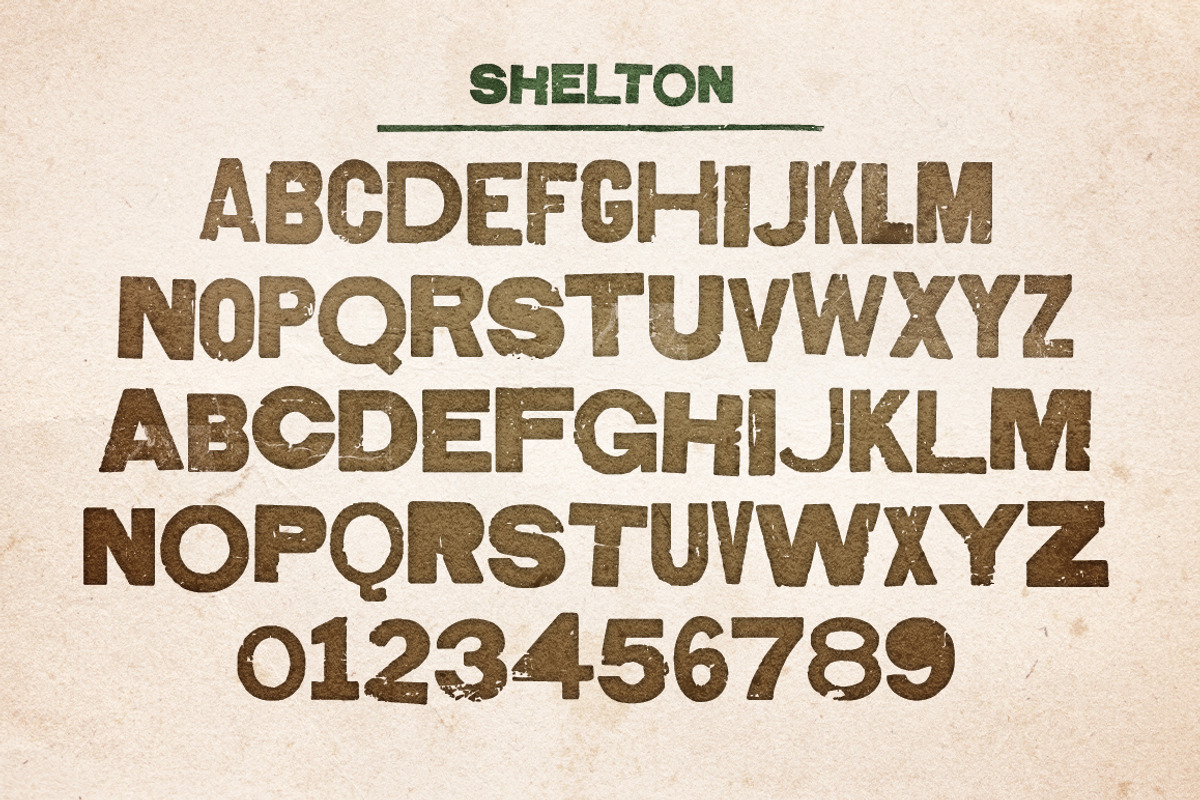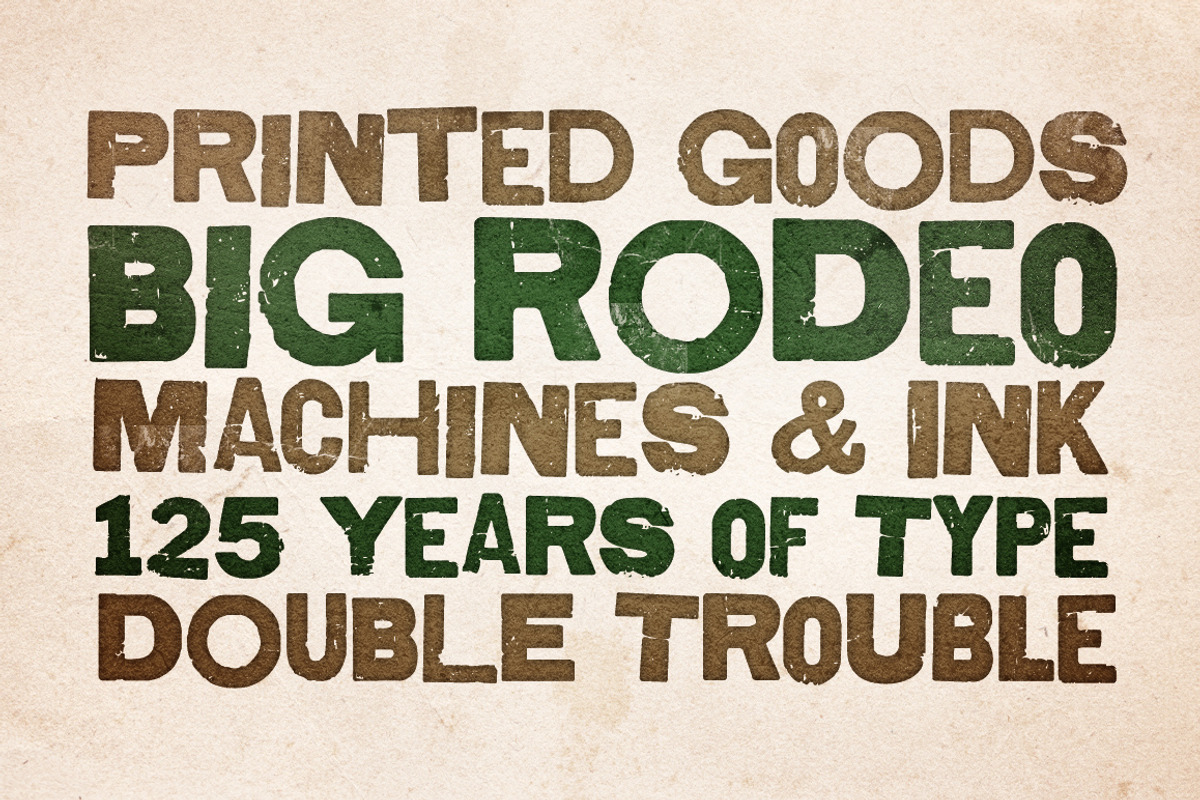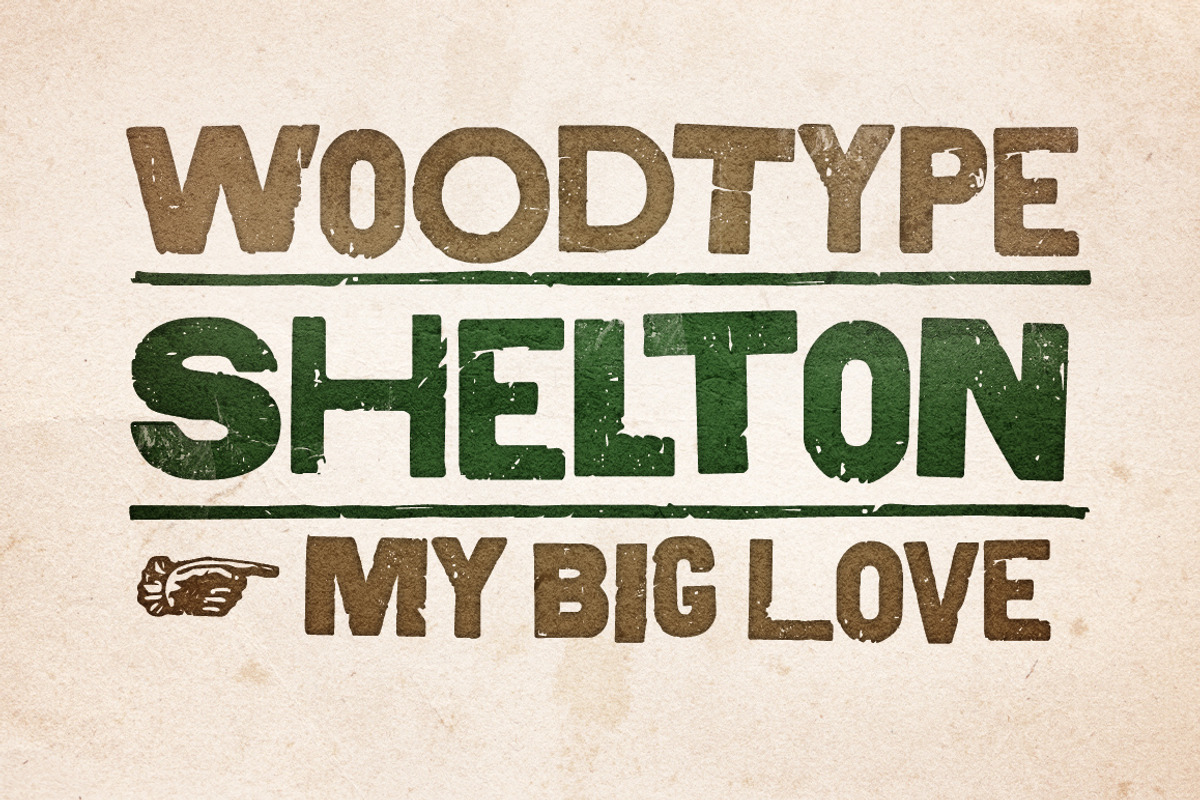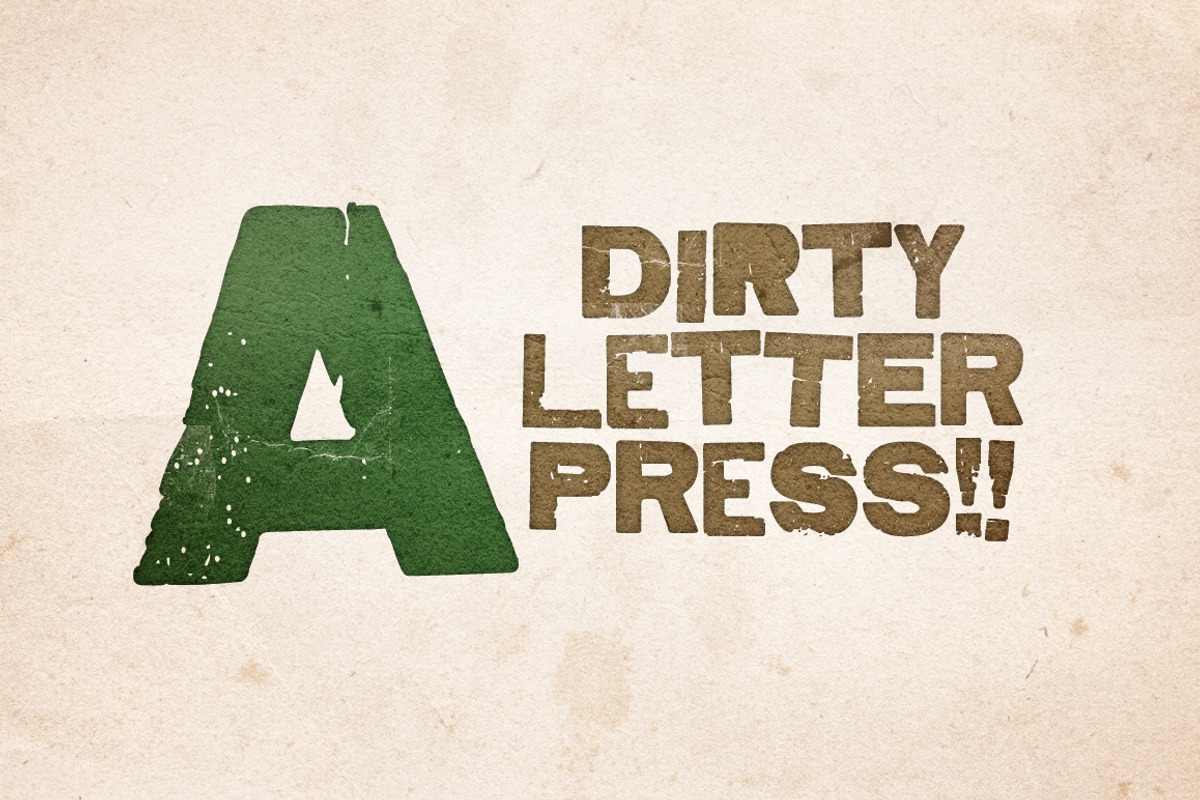
Shelton
Shelton by HvD Fonts is a font selected for branding, posters, packaging, typography.
- Shelton has wide language support and also contains arrows and other special glyphs available through the OpenType contextual alternates fea
- Every letter has an alternate character.
Shelton by HvD Fonts fits naturally into Branding, posters, packaging, typography.